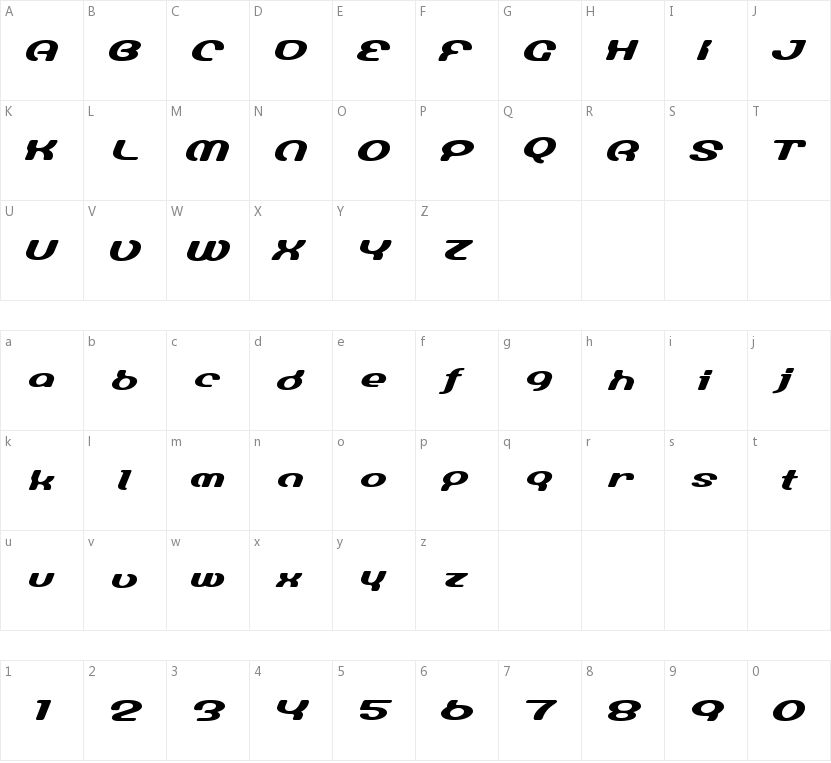
Lumine Sign font is a beautiful and modern sans serif typeface created by Japanese designer Akira Kobayashi. Launched in 2018, the font is a font designed by Kobayashi for Monotype. The Lumine Sign font is characterized by smooth strokes, presenting a strong sense of modernity. Its glyphs are very simple, yet graceful and refined. Lumine Sign fonts are suitable for a variety of design needs, including brand identity, advertising, posters, packaging, book covers and other fields. Whether in print or digital platforms, the Lumine Sign typeface excels, making it an invaluable resource for today's designers.Content introduction
Lumine Sign is a very good handwriting art font, with a good visual sense, suitable for cultural propaganda design, commercial brand advertising and product packaging design and personalized text typesetting and other more scenes.